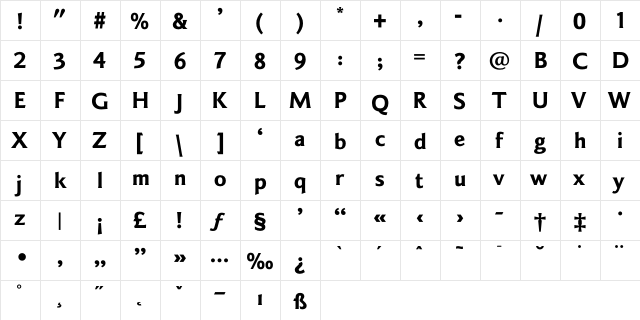
SainsburyExtraBold Regular
Design Context for SainsburyExtraBold Typeface
SainsburyExtraBold takes a measured approach to typography — its balanced proportions and neutral character make it a reliable workhorse for both digital and print work. The heavy weight commands attention and anchors typographic hierarchies.
Dating back to 1992, this typeface is available in OpenType (OTF) format.